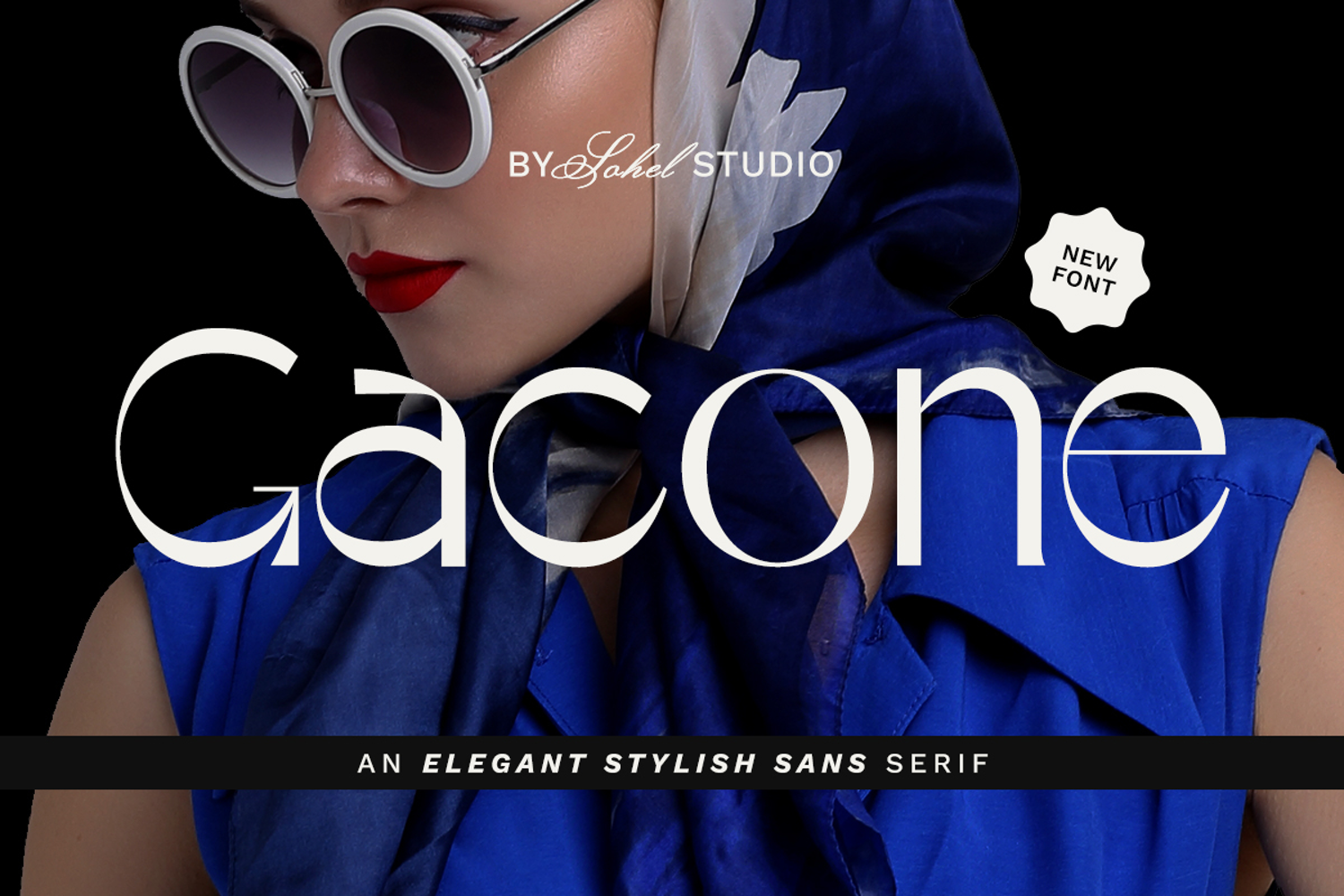
Gacone - Elegant Stylish Sans Serif
Gacone is a refined sans serif font that exudes elegance and sophistication. Designed for modern branding, editorial projects, and high-end packaging, this typeface offers a sleek and stylish appearance. Its smooth curves and balanced proportions make it perfect for luxury branding, fashion designs, magazines, creative typography, and corporate identities. Gacone is ideal for logos, business cards, social media graphics, website headers, advertising, invitations, and minimalist packaging. Whether you're working on a high-end brand, beauty product, wedding stationery, or elegant editorial layout, this font delivers a professional and contemporary touch.
• Elegant Thin Serif Style: Adds a touch of sophistication to any project.
• Unique Alternates: Provides creative flexibility and uniqueness.
• Versatile Use: Ideal for branding, invitations, magazines, logos, and more.
• High-End Aesthetic: Perfect for luxury and refined design projects.
• Full Set of Characters: Uppercase, lowercase, numerals, punctuation, and symbols.
• Unique Alternates: For creating distinctive and personalized designs.
• Multilingual Support: Includes characters for multiple languages.
• Bonus Glyphs: Additional decorative elements to enhance your designs.